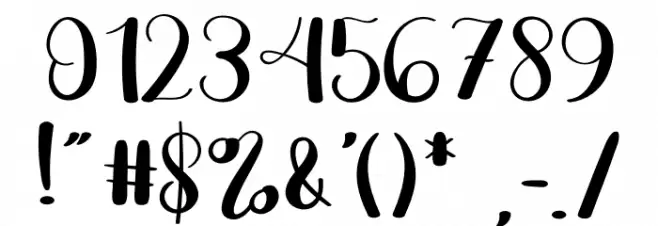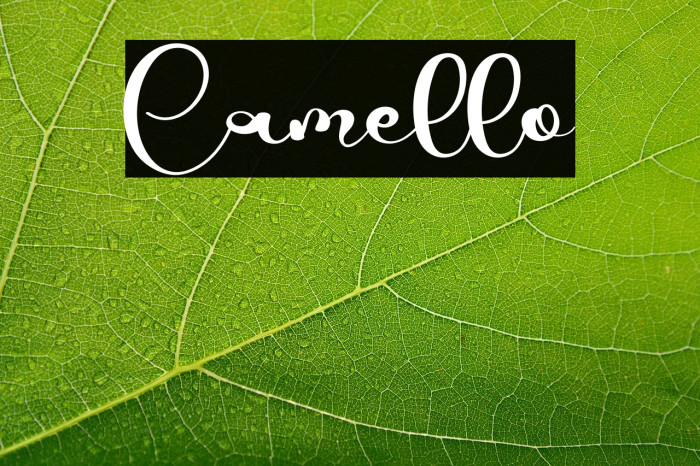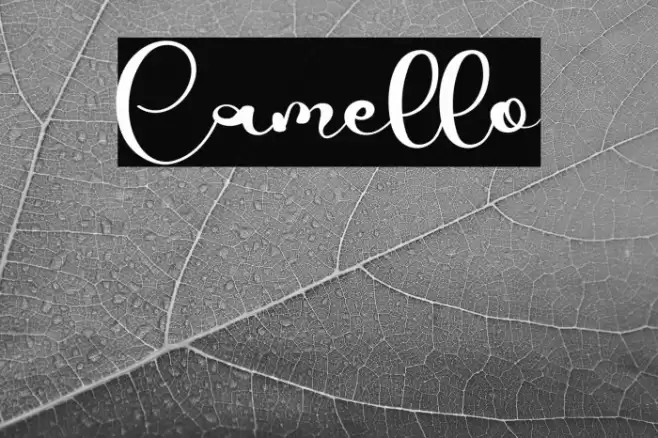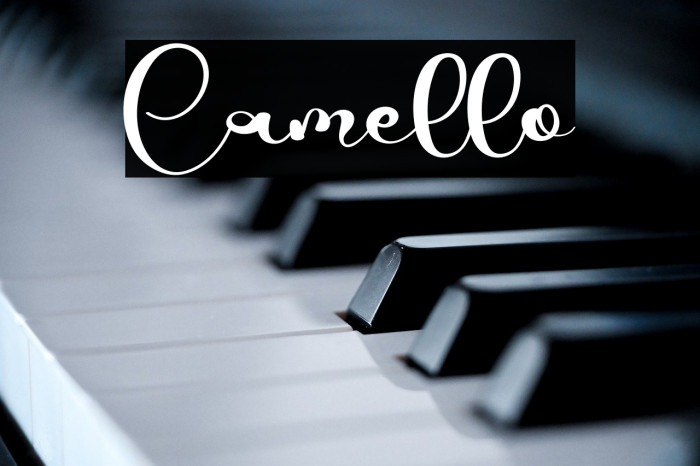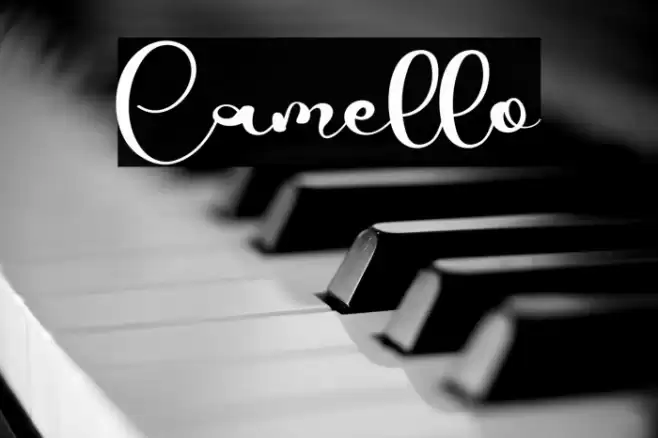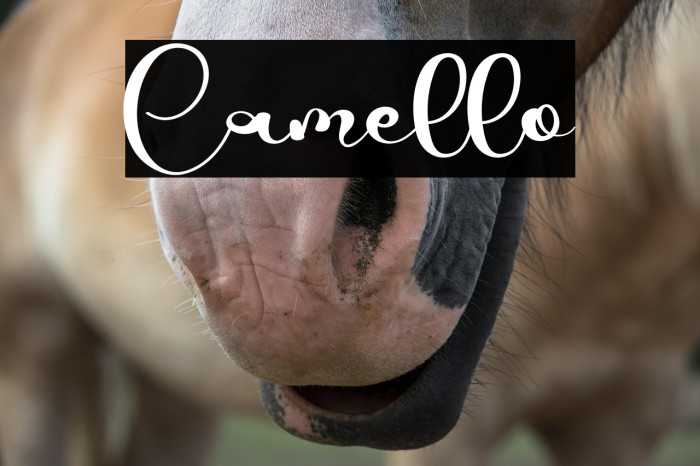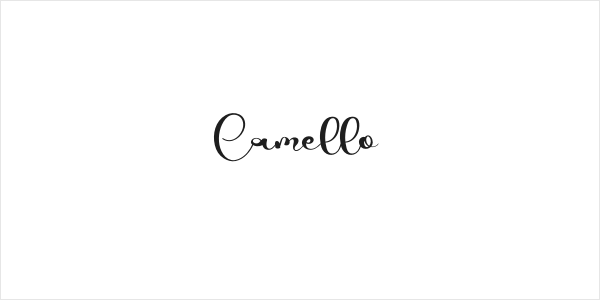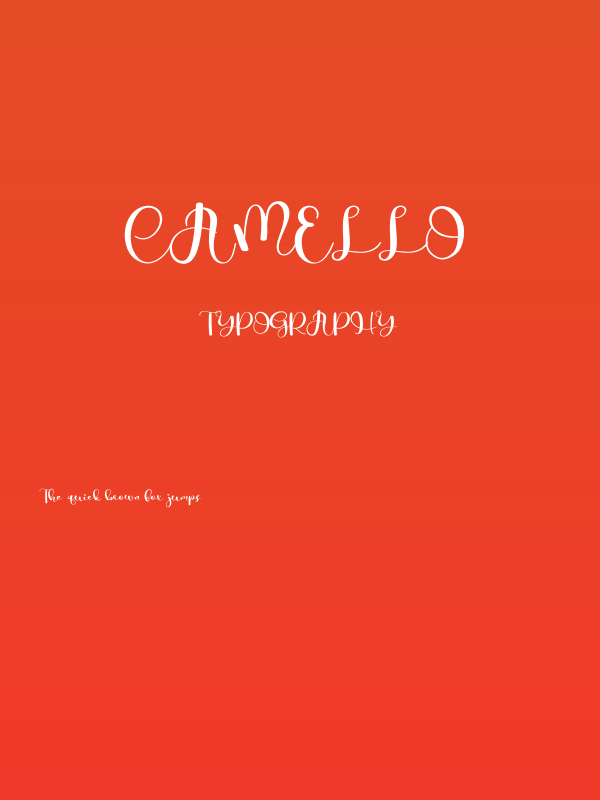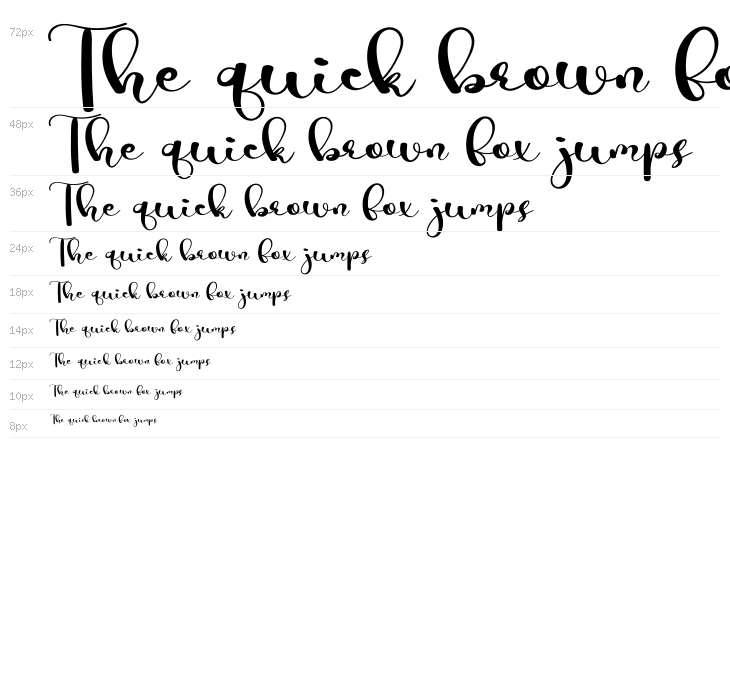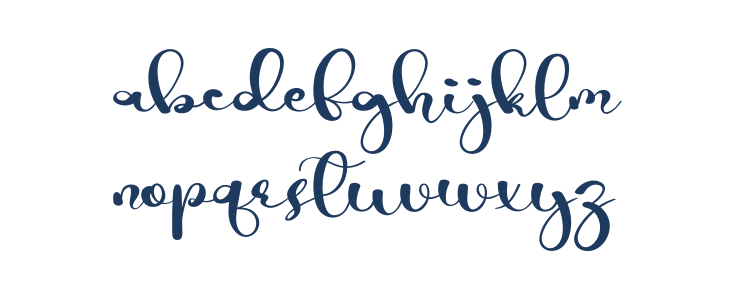
Camello Font
Camello Description
This font features a playful and elegant script style with a flowing, cursive design. The uppercase letters are characterized by their looping ascenders and descenders, giving a sense of movement and fluidity. The lowercase letters maintain a consistent style, with rounded forms and smooth connections between characters. The numerals are bold and slightly whimsical, fitting well with the overall aesthetic. Special characters are integrated seamlessly, maintaining the font's cohesive look. This font is ideal for projects that require a touch of elegance and personality, such as invitations, greeting cards, and branding materials.
| Use Case | Headlines, Logos, Decorative text |
| Proposed Projects | Ideal for invitations, greeting cards, branding materials, and decorative designs. |